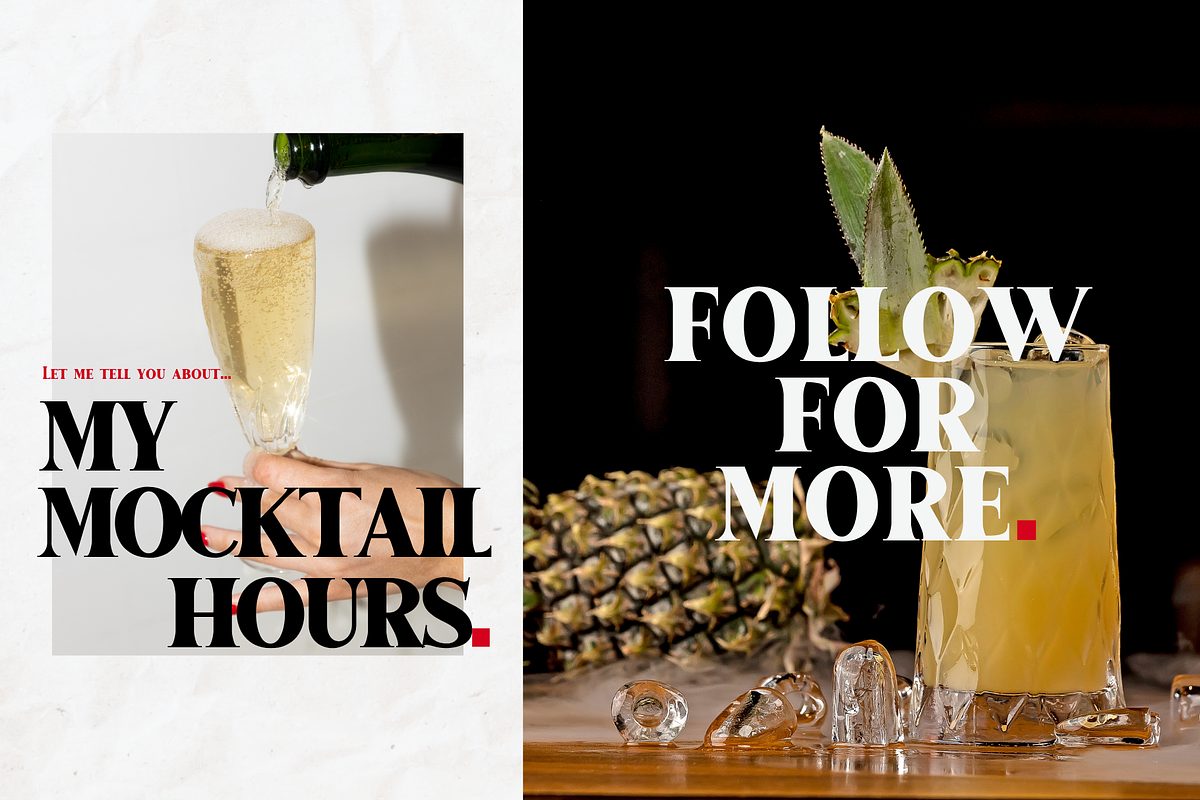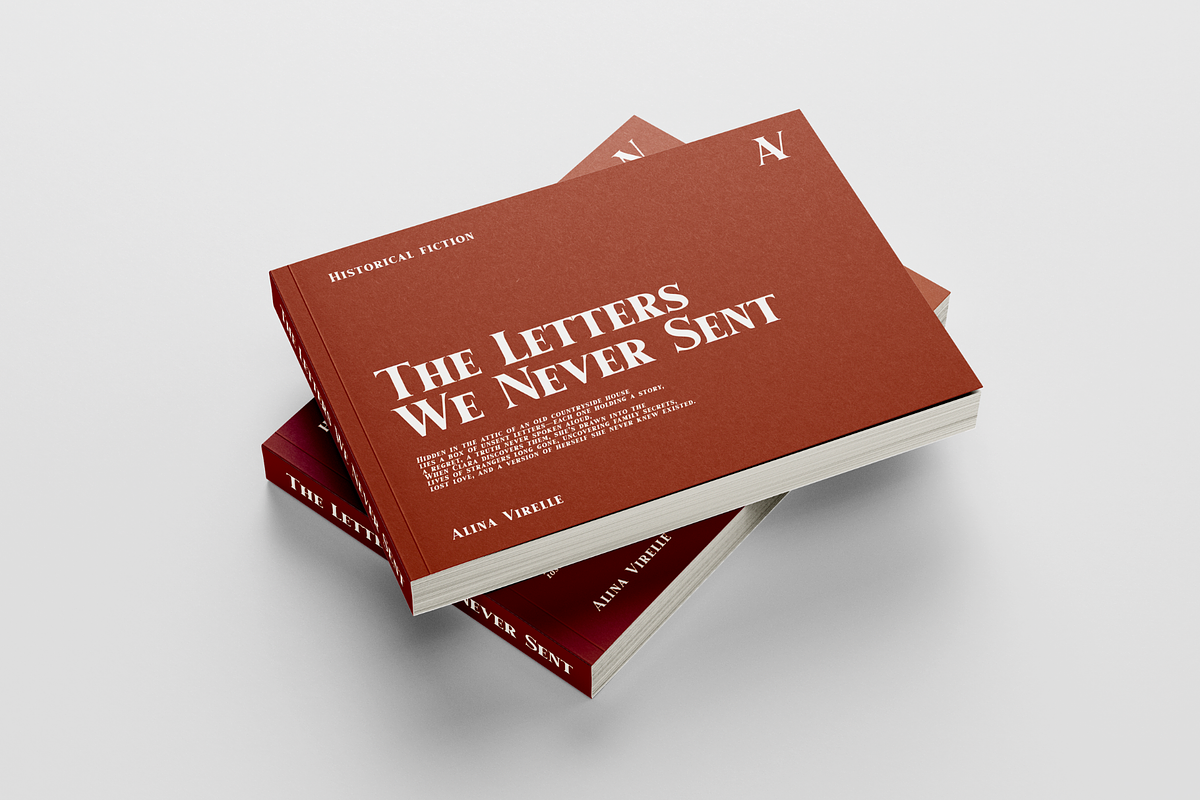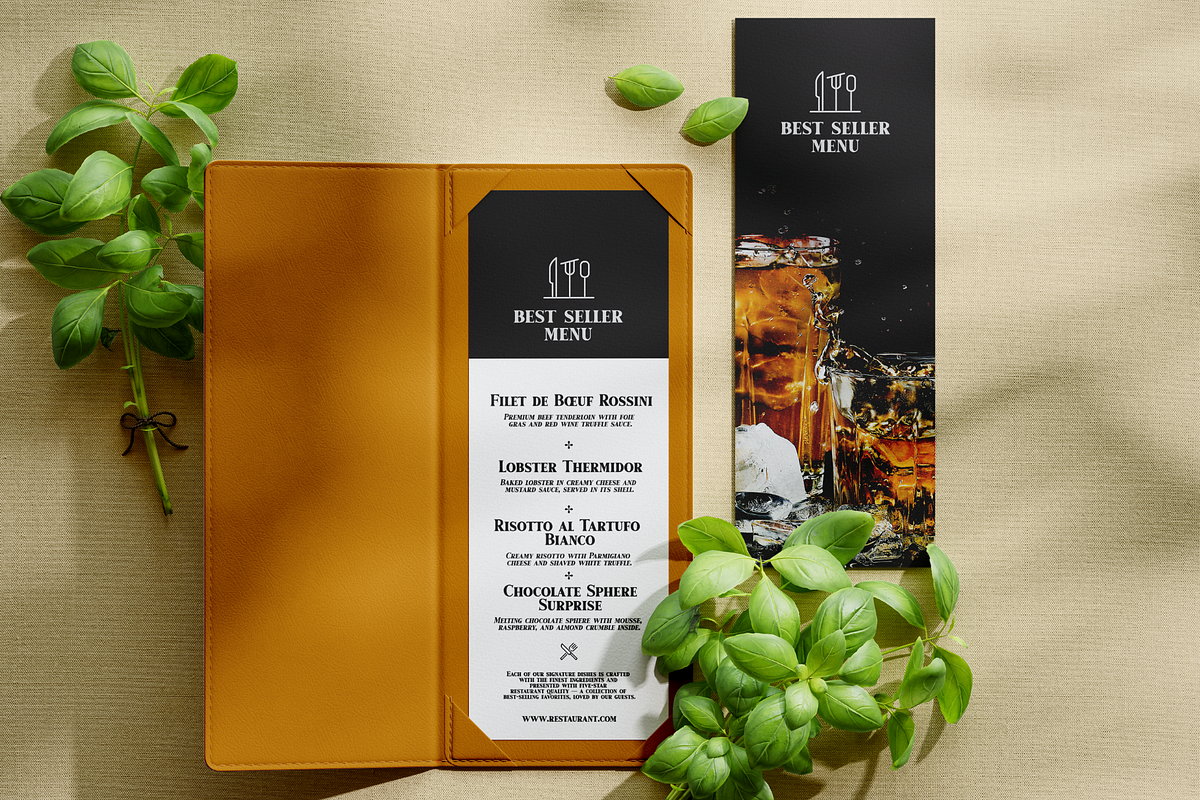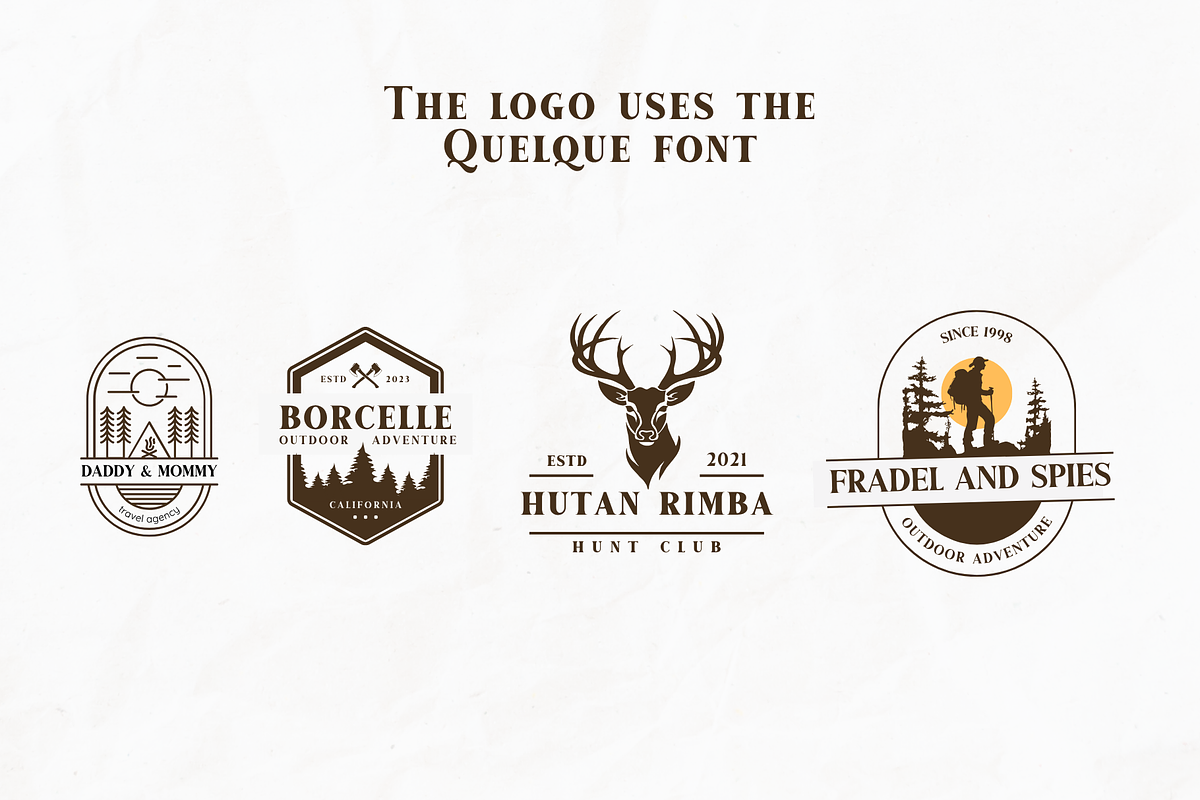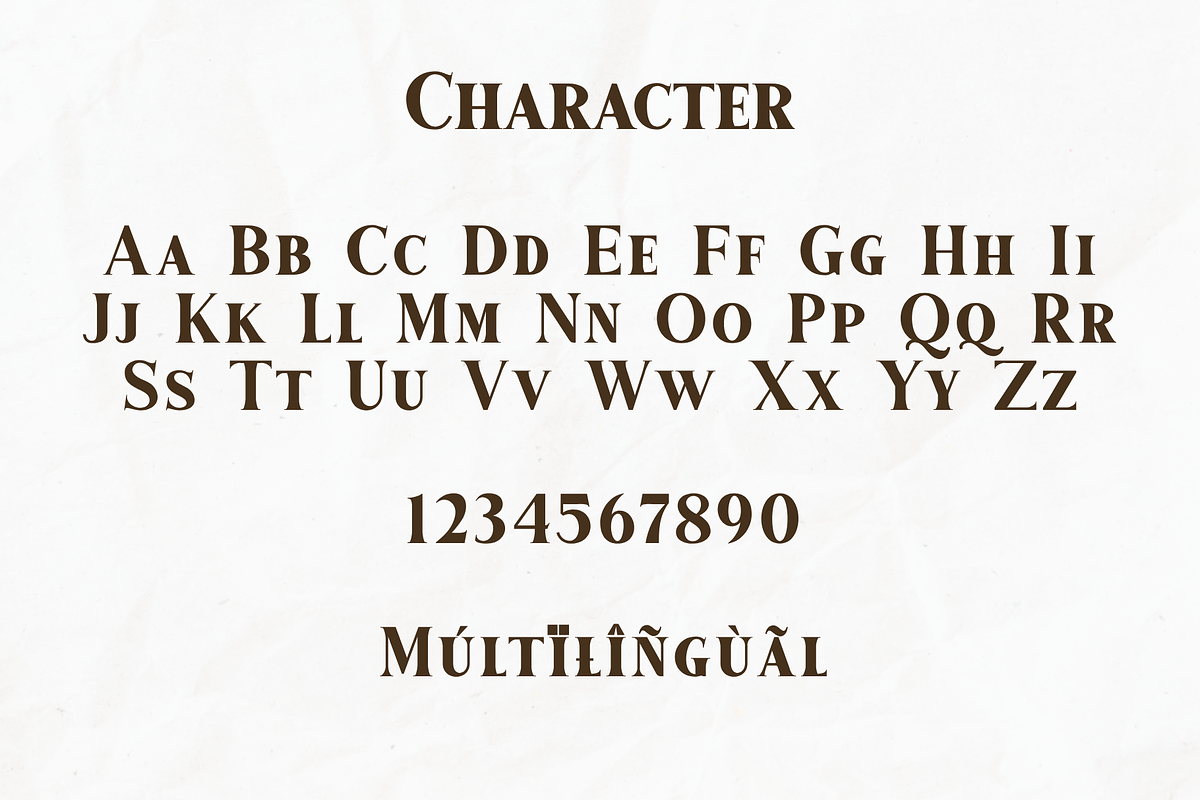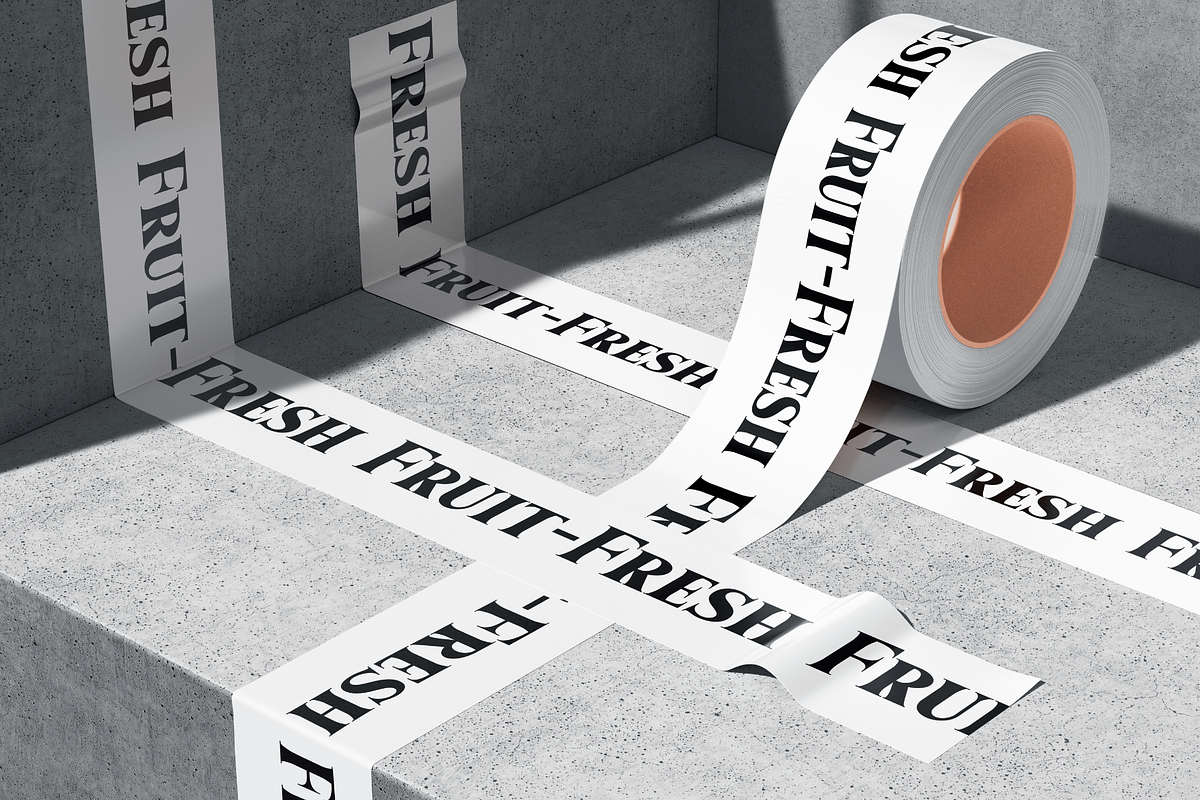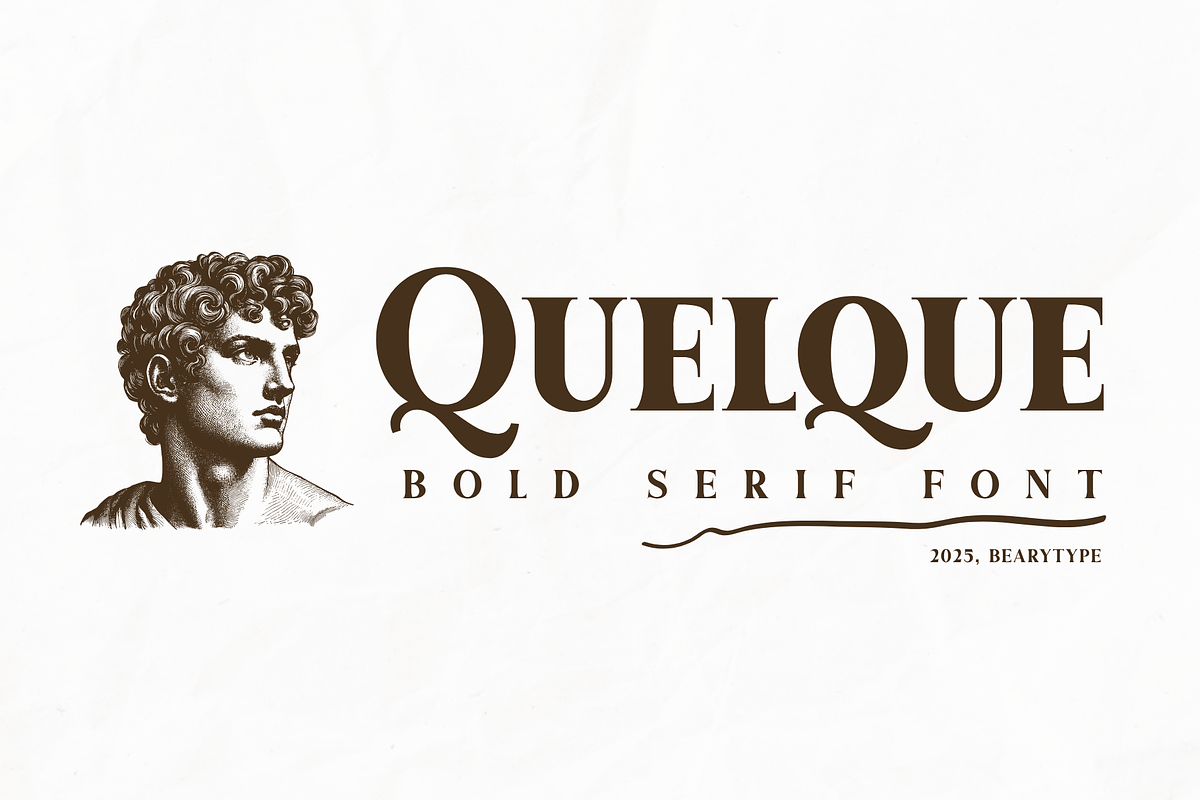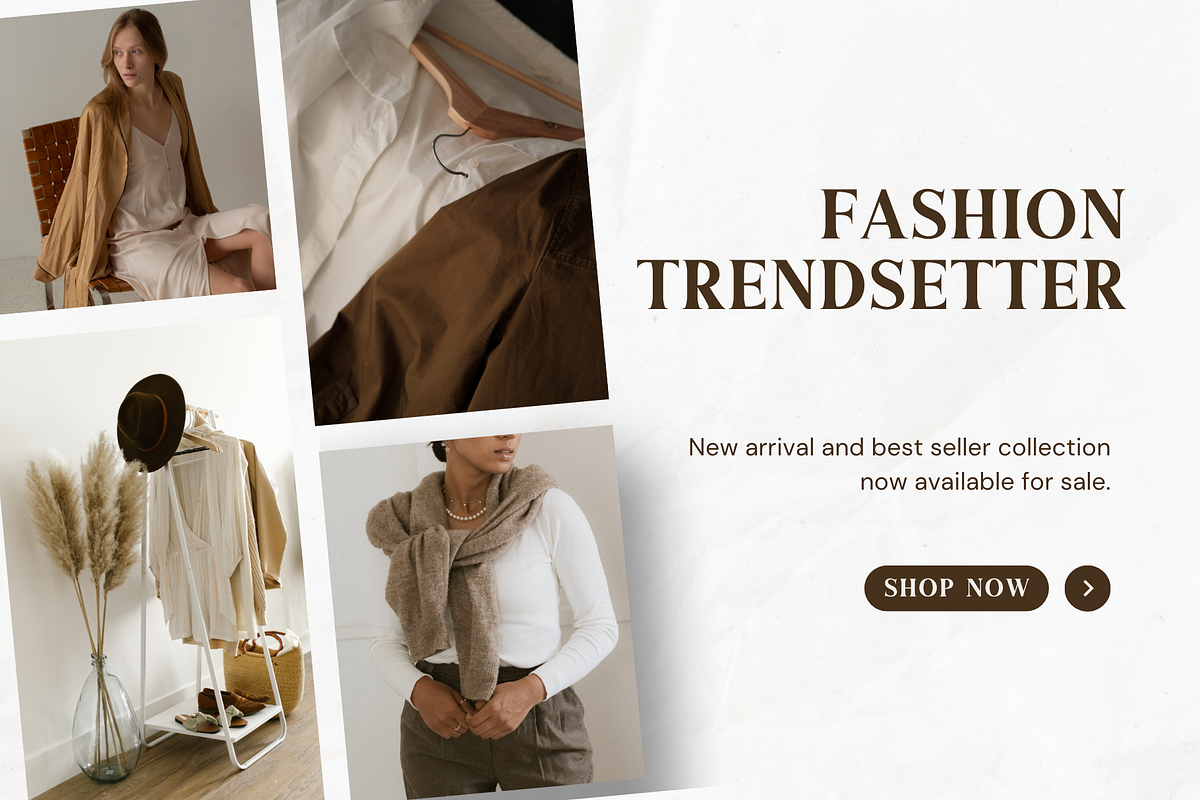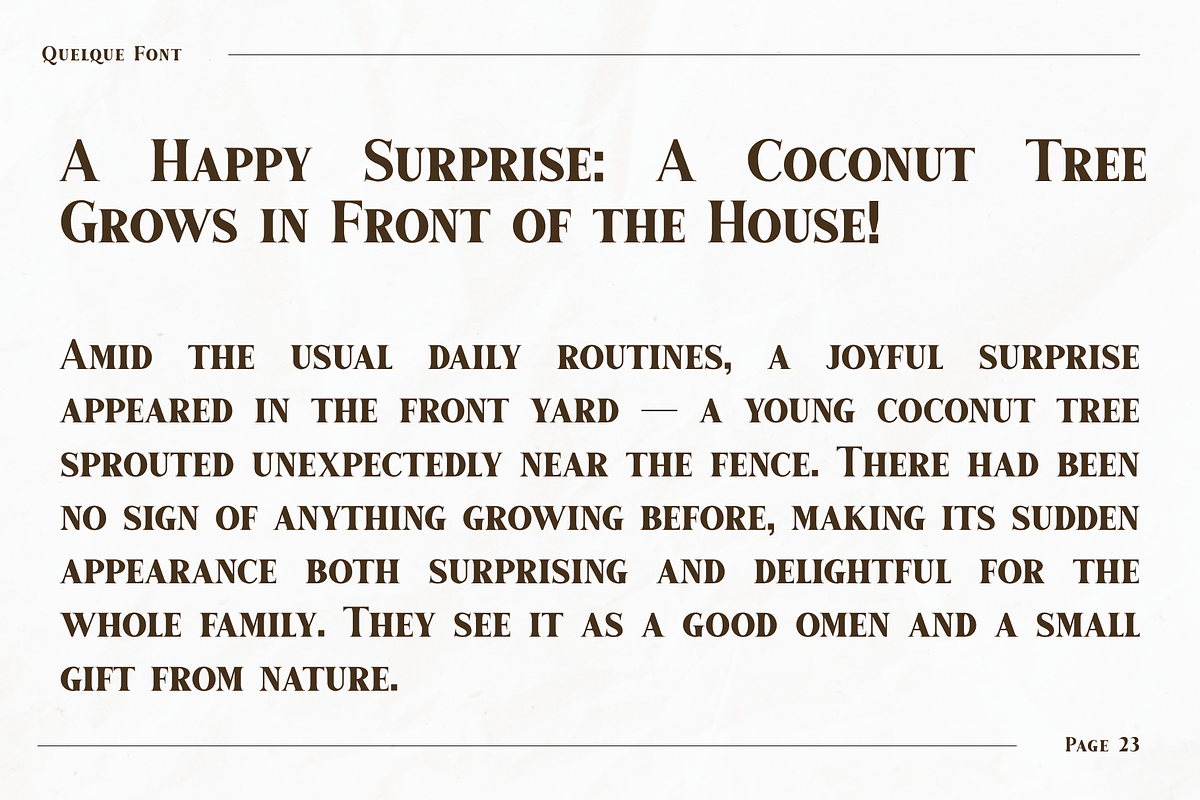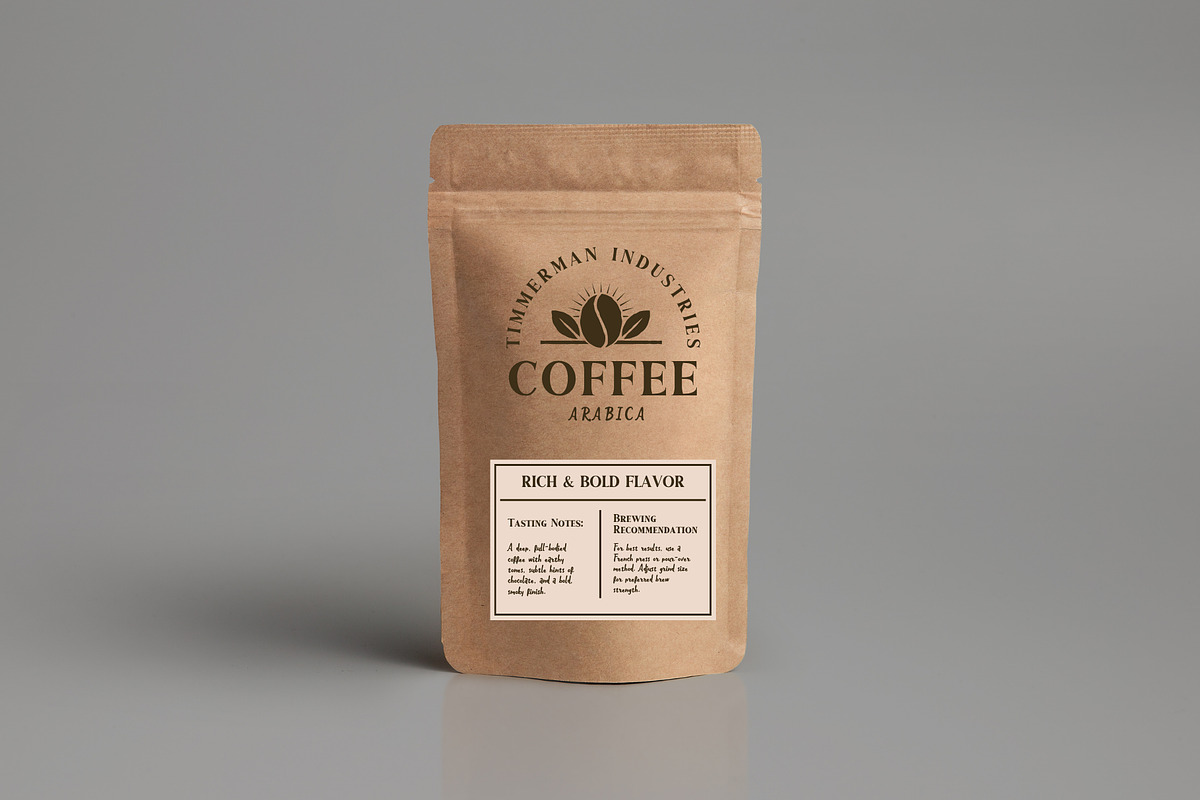
Quelque - Bold Serif
Quelque is a bold serif font that features 218 glyphs and supports multiple languages.
Quelque brings a sense of strength and sophistication through its confident, thick serifs and well-balanced letterforms. Designed to stand out, it merges classic charm with a contemporary edge—making it ideal for impactful design projects such as headlines, editorial layouts, book covers, branding, posters, and packaging.
Whether used in print or digital media, Quelque ensures your message is delivered with clarity and character.